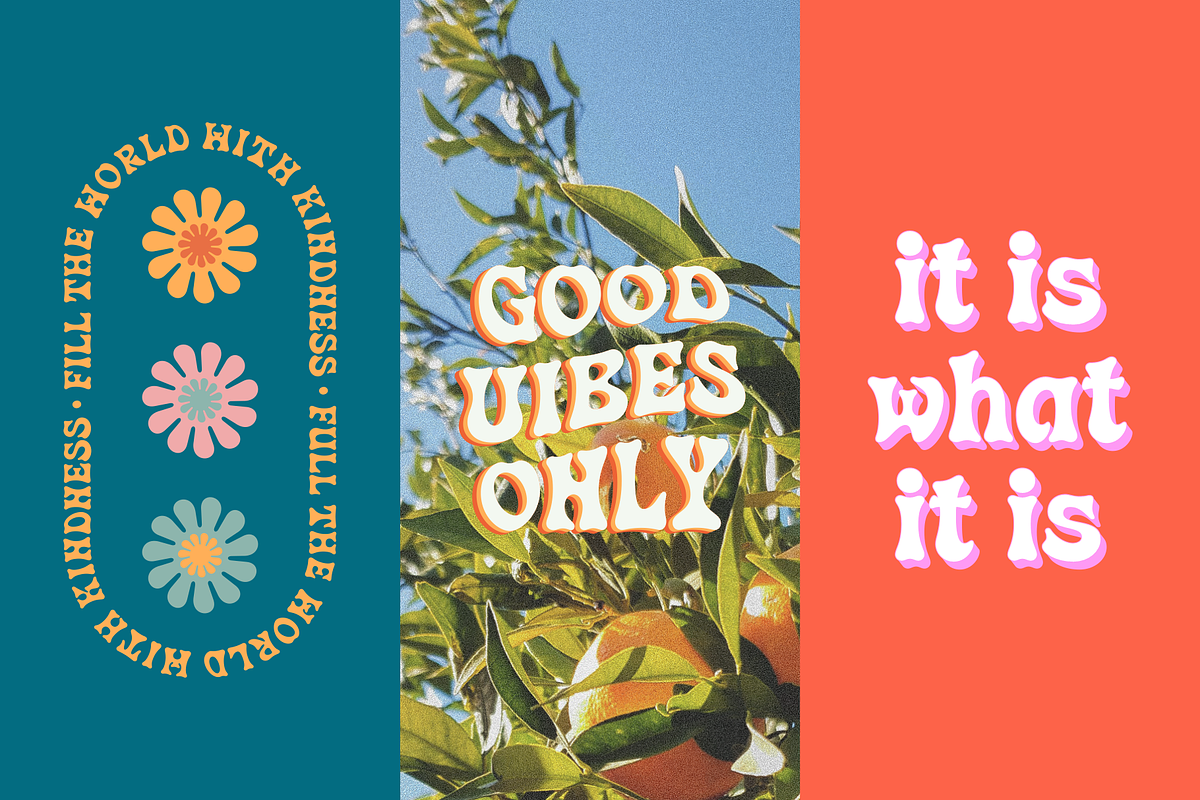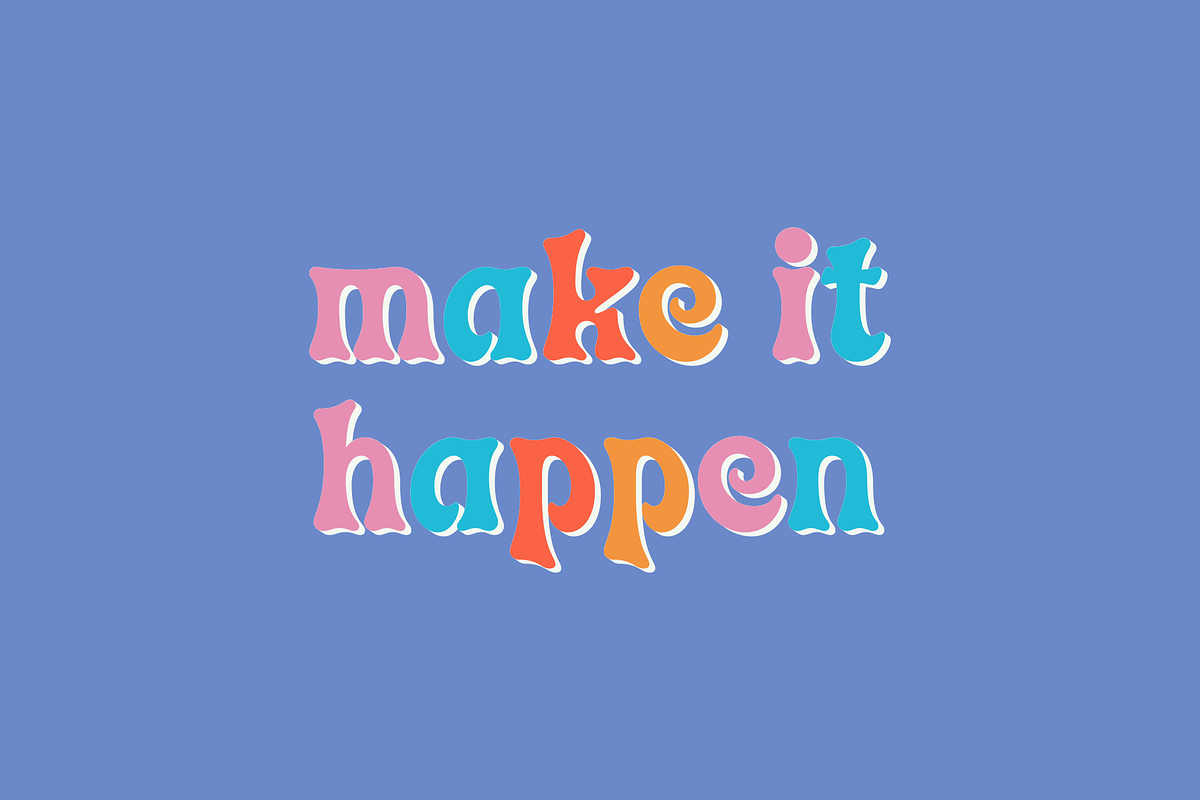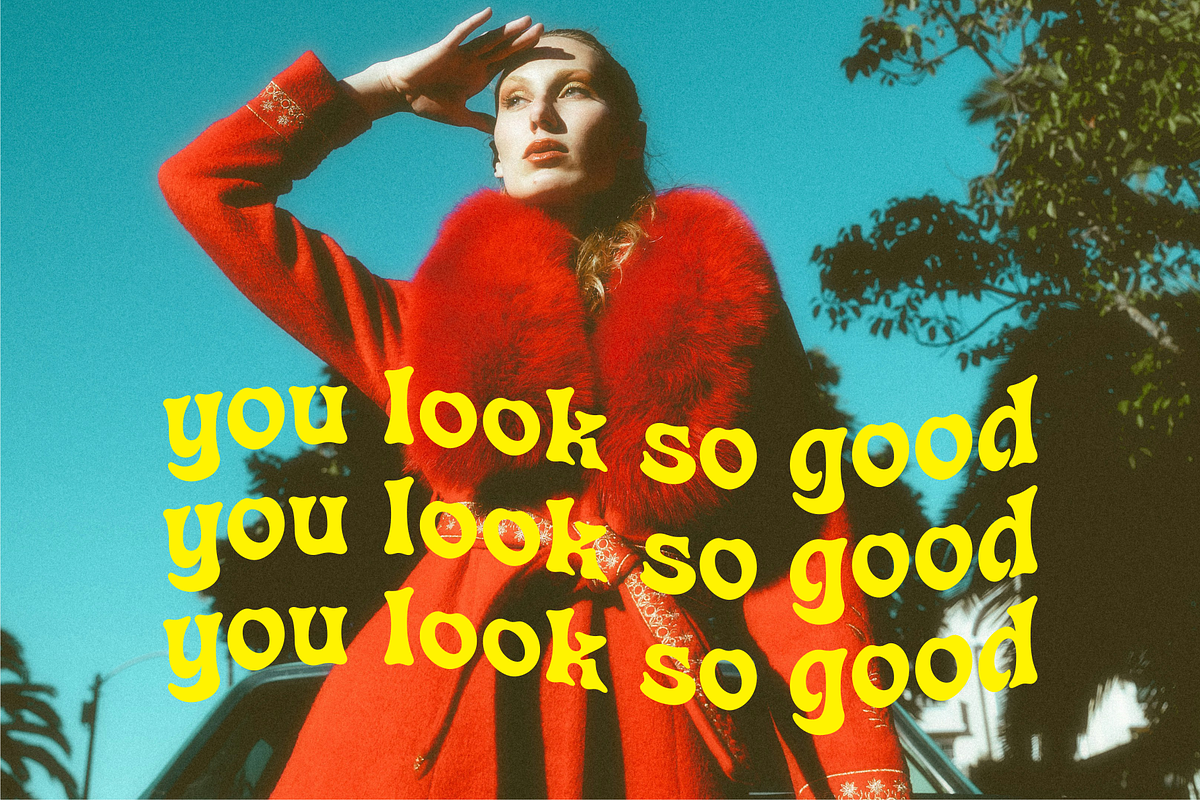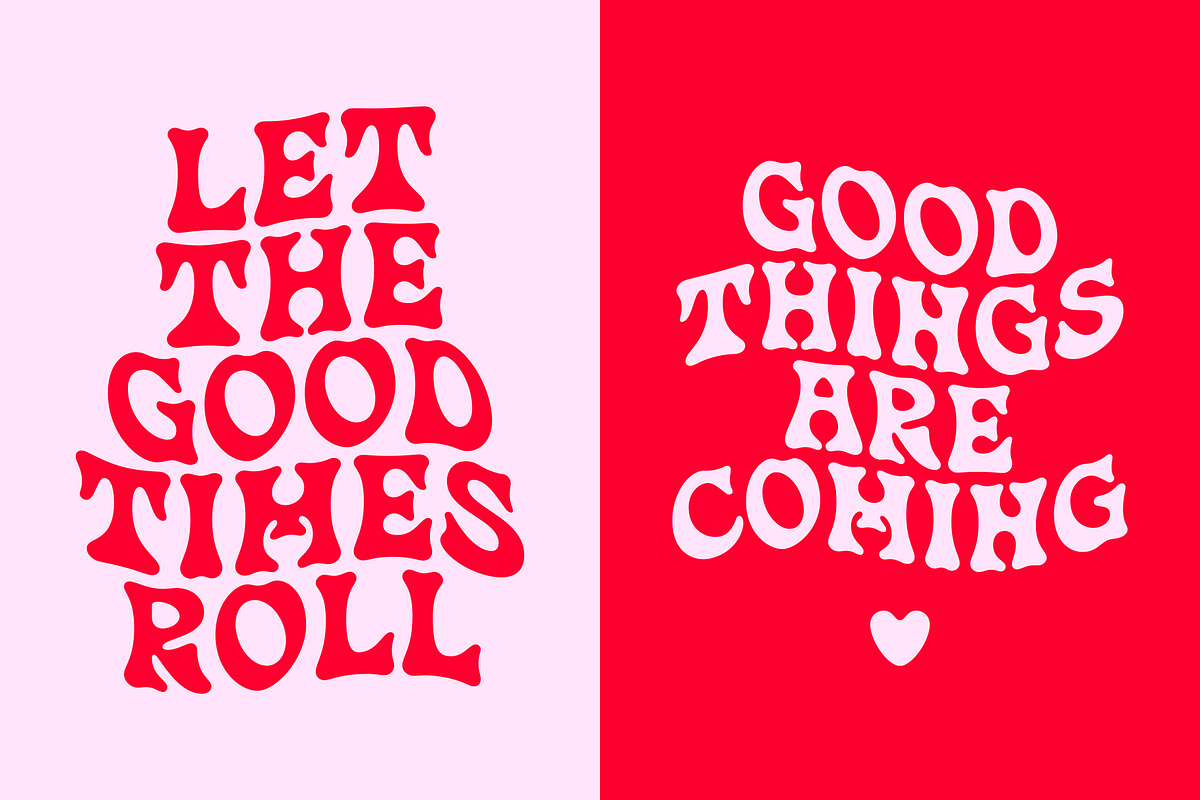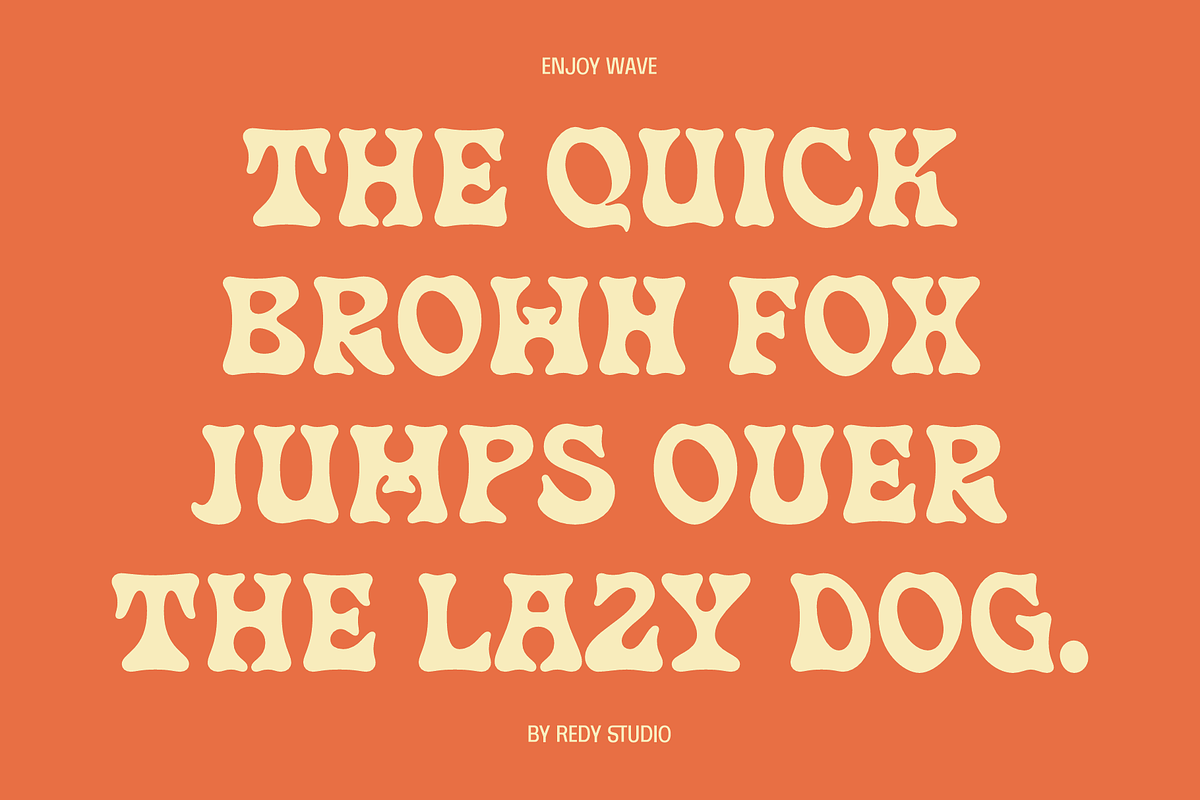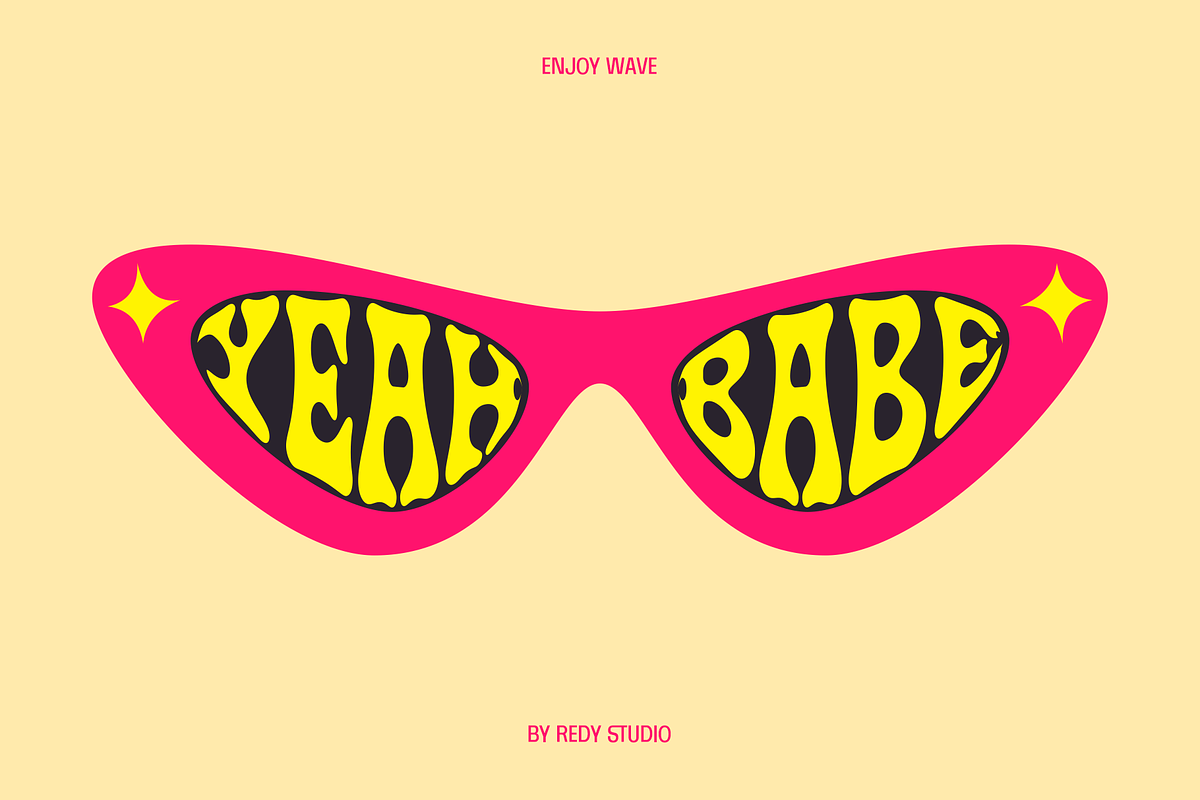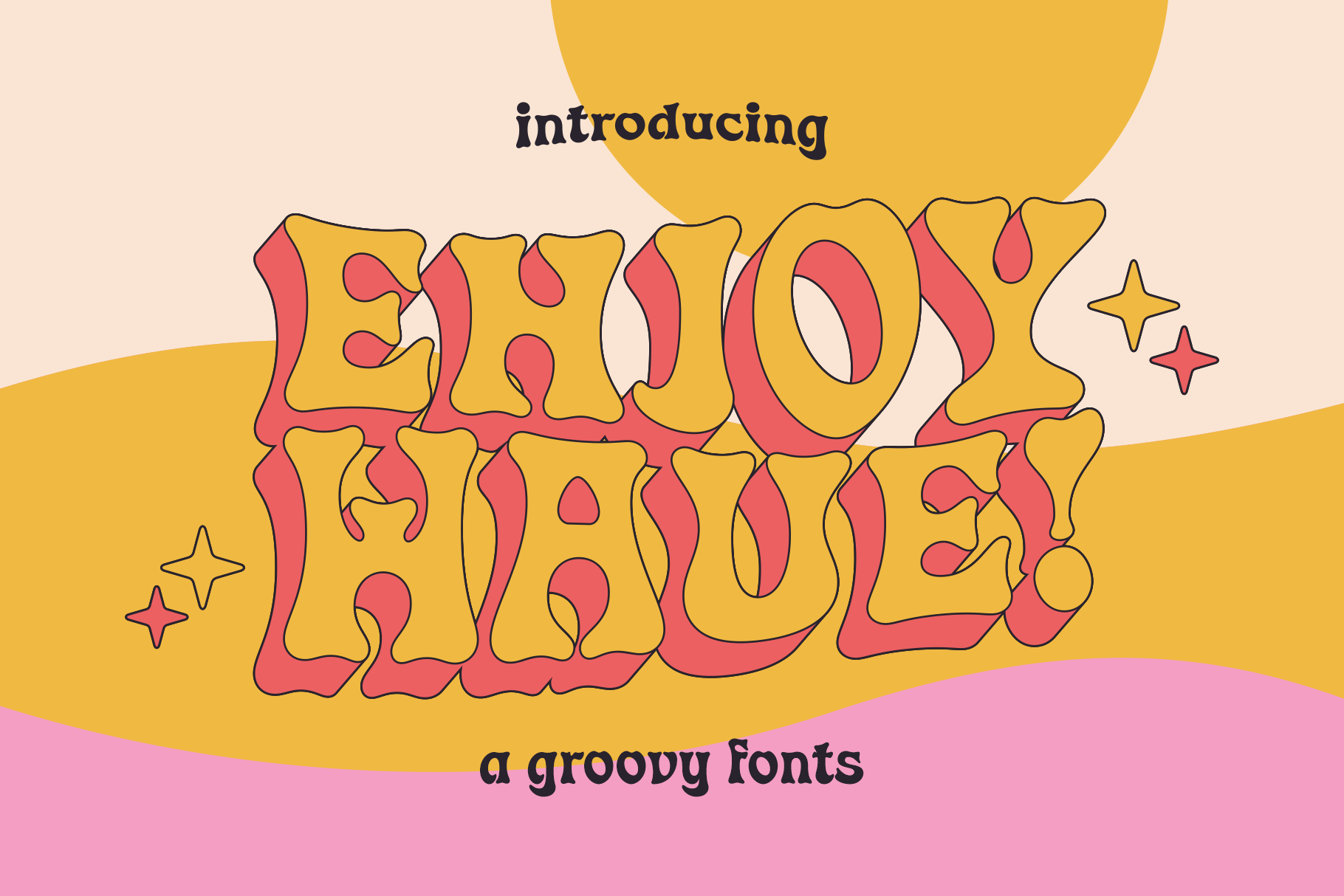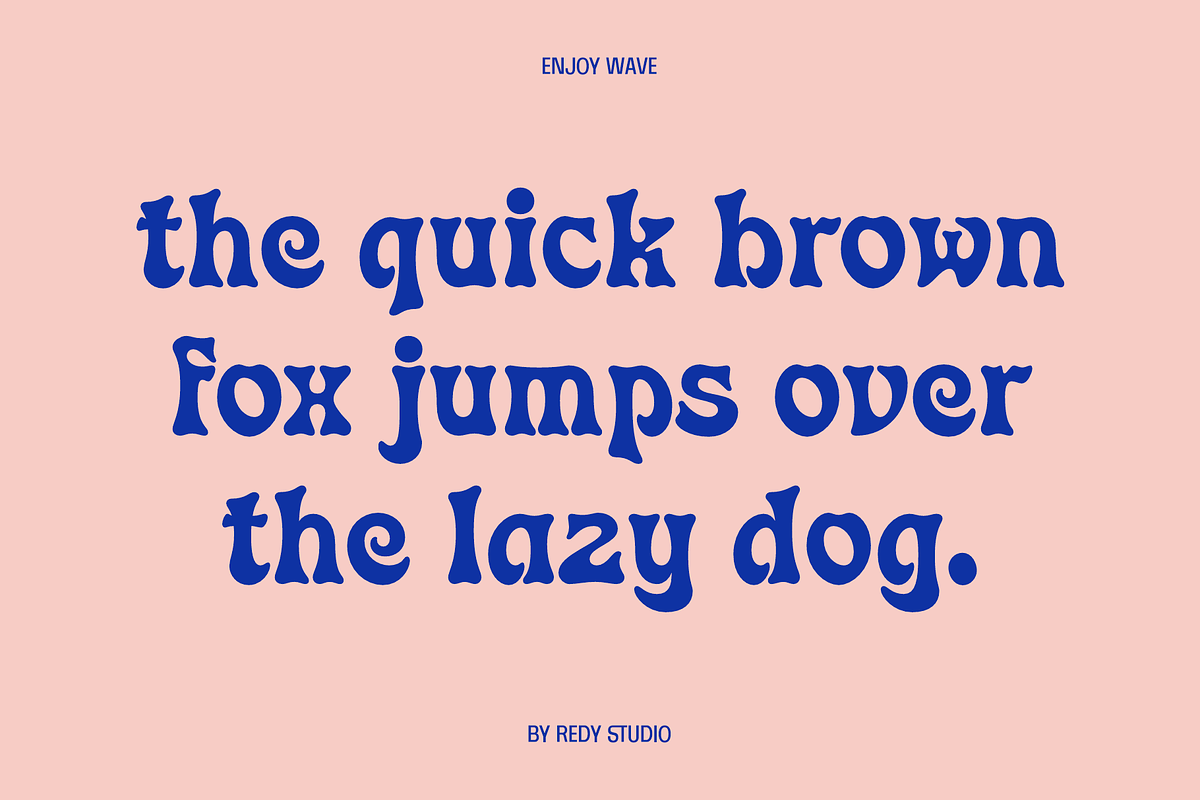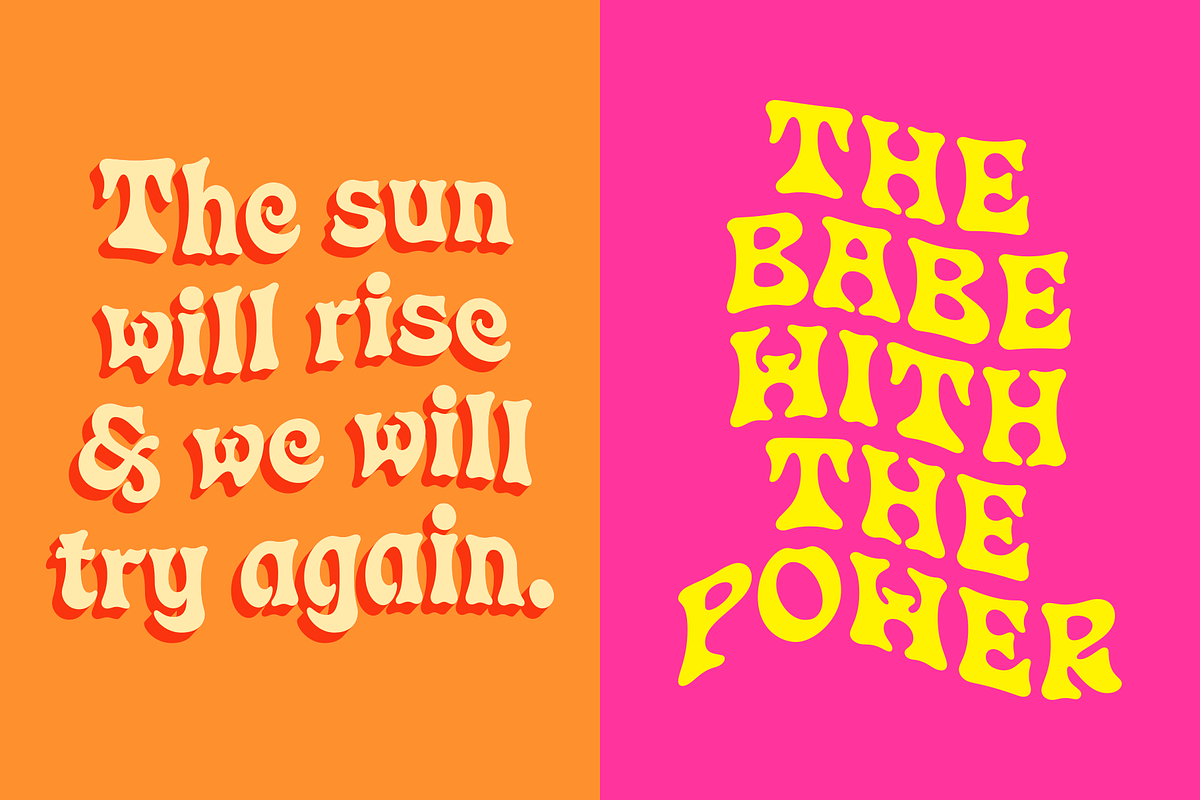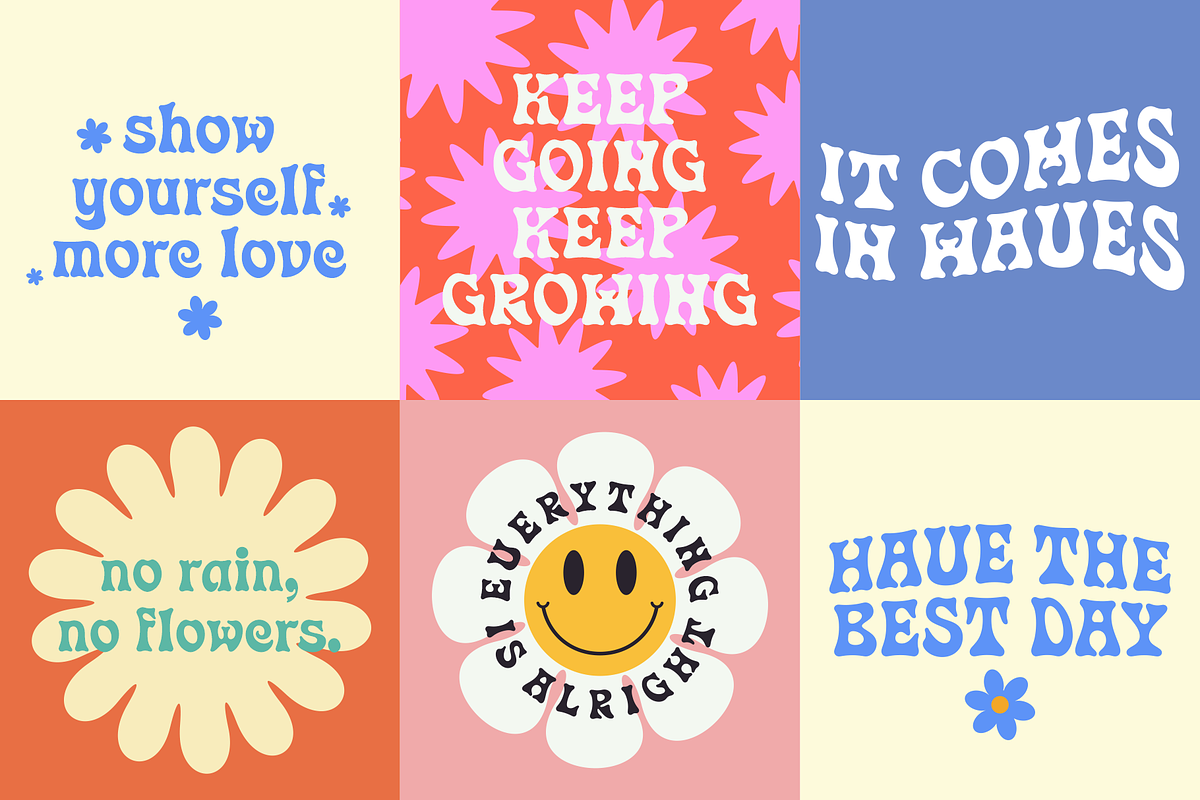
Enjoy Wave - A Groovy Font
Want to add a retro flair to your designs? Enjoy Wave - A Groovy Font is here! Inspired by the iconic, free-flowing typography of the 70s, this playful display font combines bold, rounded shapes with a nostalgic yet modern twist. It's the perfect choice for capturing a free-spirited, vintage vibe in posters, logos, and branding projects.
Very suitable for logotype, Stickers, Packaging design, Cricut Project, headlines, brand identity, t shirt or apparel industry, posters, magazines, books, YouTube, Instagram, websites, or any of your creative design projects.
Make waves with Enjoy Wave - A Groovy Font!